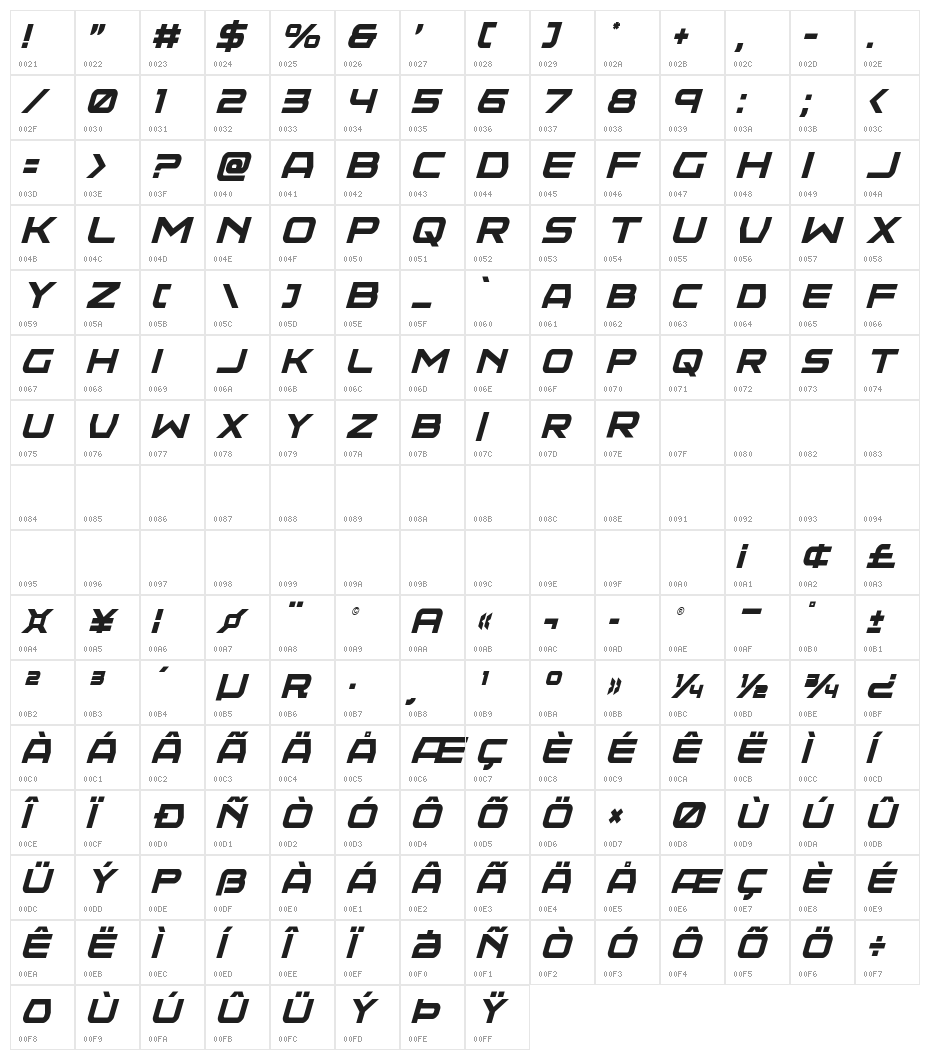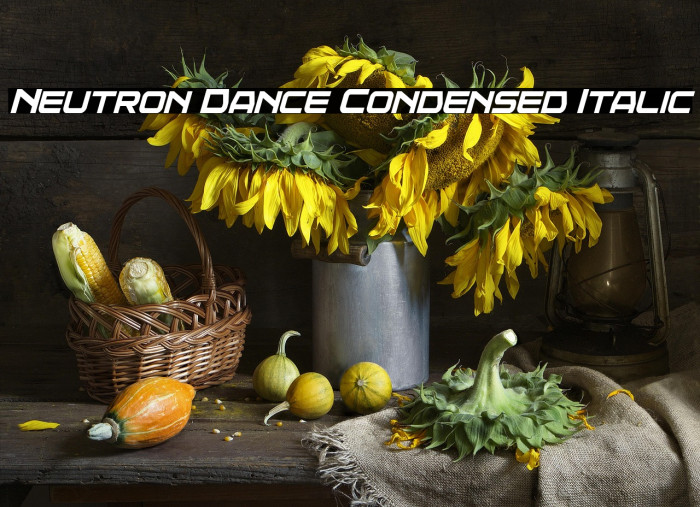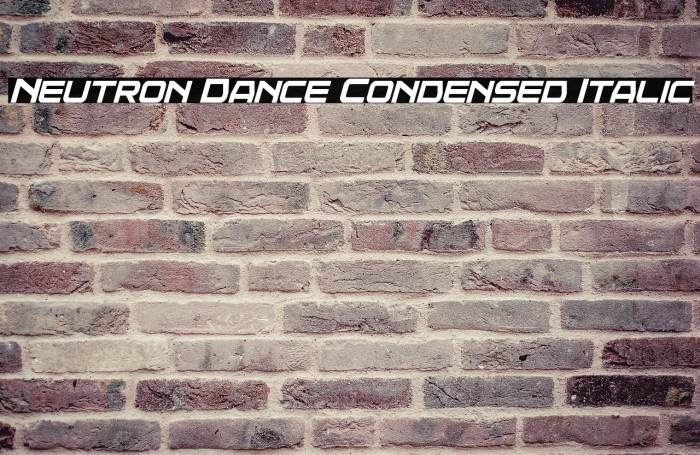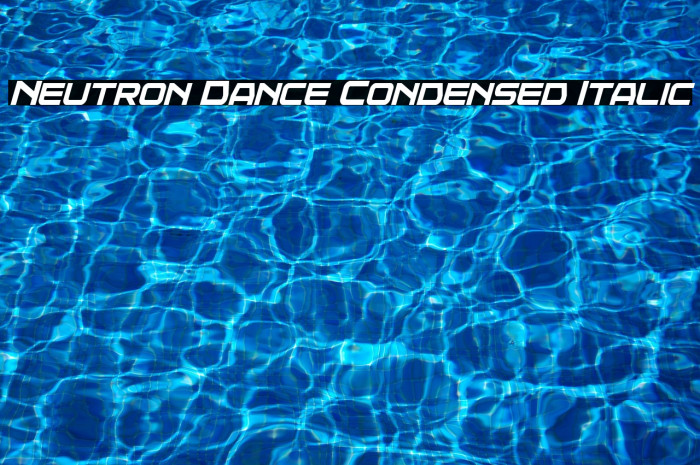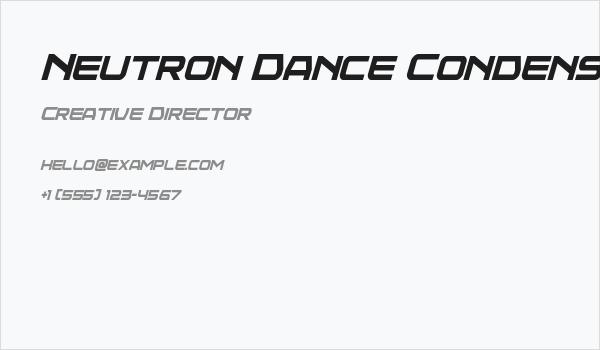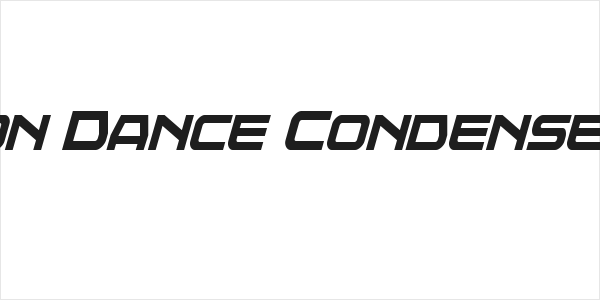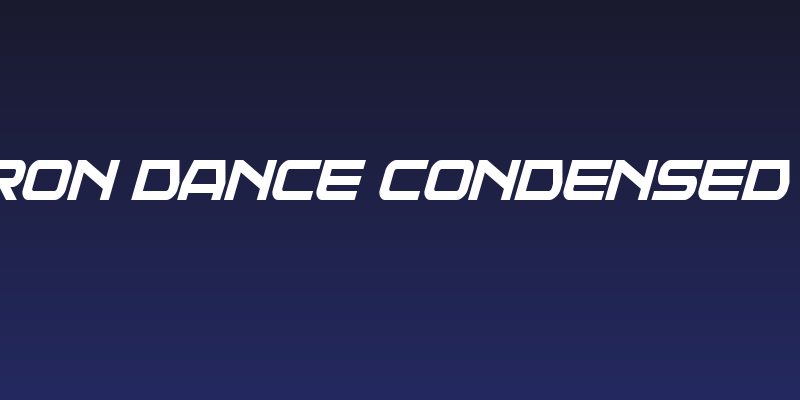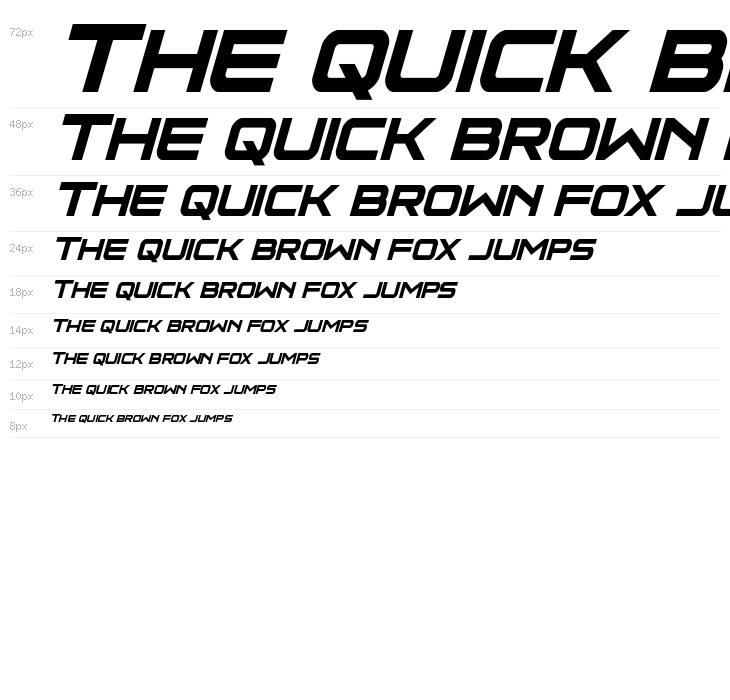
Neutron Dance Condensed Italic Font
Neutron Dance Condensed Italic Description
This font features a modern, dynamic style with a condensed and italicized form. The characters are sleek and angular, giving a sense of motion and energy. The uppercase and lowercase letters maintain a consistent slant, enhancing the italic effect. The numerals are bold and clear, matching the overall aesthetic of the letters. Special characters are designed with the same angular precision, ensuring uniformity across all glyphs. The font's condensed width allows for efficient use of space, making it suitable for various design applications where a contemporary and energetic look is desired.
| Proposed Projects | Ideal for sports branding, tech logos, dynamic posters, and modern web design. |